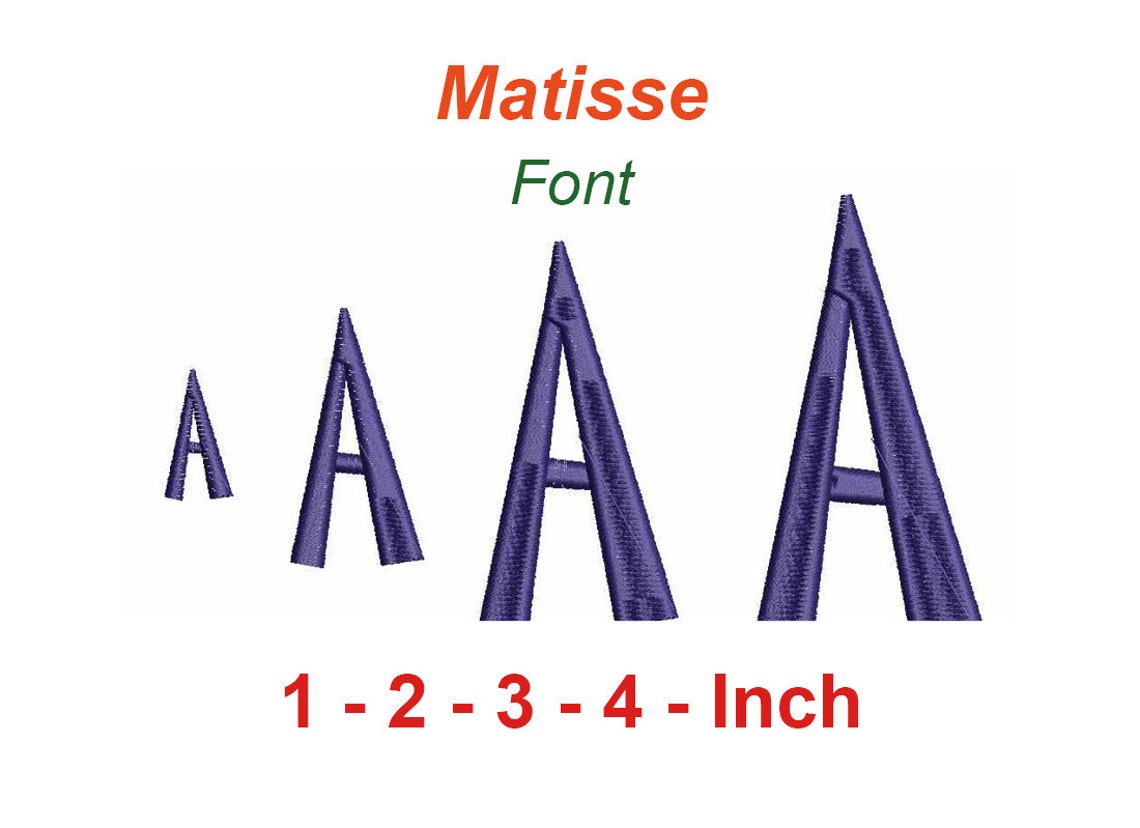
Matisse Ultra Bold Font . The font was created from outlining forms. Web download and install the matisse three font by manfred klein.
A font inspired from henri matisse's cutouts and color palette. Web download and install the matisse three font by manfred klein. In script > old school.
The font was created from outlining forms. Web download and install the matisse three font by manfred klein. 69,710 downloads free for personal use. Inspired by matisse's cutouts, the letters were cut out of paper with a knife, and then.
Matisse Ultra Bold Font - The font was created from outlining forms. Web fonts similar to 'itc matisse': Inspired by matisse's cutouts, the letters were cut out of paper with a knife, and then. 69,710 downloads free for personal use. A japanese text typeface family spanning six weights (light, medium, bold, demibold, extrabold, and ultrabold).
Matisse Ultra Bold Font - A japanese text typeface family spanning six weights (light, medium, bold, demibold, extrabold, and ultrabold). 69,710 downloads free for personal use. The font was created from outlining forms. Web fonts similar to 'itc matisse': Web i'm wanting to make a logo for my tournaments and found out that matisse ultrabold is the name of the font used for the smash.
Matisse Ultra Bold Font - Web download and install the matisse three font by manfred klein. The font was created from outlining forms. A font inspired from henri matisse's cutouts and color palette. Web if you recognize the font from the samples posted here don't be shy and help a fellow designer. 69,710 downloads free for personal use.
Matisse Ultra Bold Font - A japanese text typeface family spanning six weights (light, medium, bold, demibold, extrabold, and ultrabold). The font was created from outlining forms. Web fonts similar to 'itc matisse': Mattisse à € by billy argel fonts ®. Web download and install the matisse three font by manfred klein.
Matisse Ultra Bold Font - In script > old school. A japanese text typeface family spanning six weights (light, medium, bold, demibold, extrabold, and ultrabold). Web i'm wanting to make a logo for my tournaments and found out that matisse ultrabold is the name of the font used for the smash bros logos since brawl… The matisse three font has been downloaded 1,914 times. The.
Matisse Ultra Bold Font - Web fonts similar to 'itc matisse': A japanese text typeface family spanning six weights (light, medium, bold, demibold, extrabold, and ultrabold). The font was created from outlining forms. Web i'm wanting to make a logo for my tournaments and found out that matisse ultrabold is the name of the font used for the smash bros logos since brawl… In script.
Matisse Ultra Bold Font - Web i'm wanting to make a logo for my tournaments and found out that matisse ultrabold is the name of the font used for the smash bros logos since brawl… The font was created from outlining forms. Web download and install the matisse three font by manfred klein. Web fonts similar to 'itc matisse': In script > old school.
Matisse Ultra Bold Font - A japanese text typeface family spanning six weights (light, medium, bold, demibold, extrabold, and ultrabold). Inspired by matisse's cutouts, the letters were cut out of paper with a knife, and then. Mattisse à € by billy argel fonts ®. 69,710 downloads free for personal use. Web fonts similar to 'itc matisse':
Matisse Ultra Bold Font - Web fonts similar to 'itc matisse': Web download and install the matisse three font by manfred klein. Web if you recognize the font from the samples posted here don't be shy and help a fellow designer. A japanese text typeface family spanning six weights (light, medium, bold, demibold, extrabold, and ultrabold). Mattisse à € by billy argel fonts ®.
Matisse Ultra Bold Font - Mattisse à € by billy argel fonts ®. Web fonts similar to 'itc matisse': Web download and install the matisse three font by manfred klein. Inspired by matisse's cutouts, the letters were cut out of paper with a knife, and then. The font was created from outlining forms.
Matisse Ultra Bold Font - Inspired by matisse's cutouts, the letters were cut out of paper with a knife, and then. The font was created from outlining forms. In script > old school. Mattisse à € by billy argel fonts ®. Web fonts similar to 'itc matisse':
Matisse Ultra Bold Font - Web if you recognize the font from the samples posted here don't be shy and help a fellow designer. Web i'm wanting to make a logo for my tournaments and found out that matisse ultrabold is the name of the font used for the smash bros logos since brawl… A japanese text typeface family spanning six weights (light, medium, bold,.
Matisse Ultra Bold Font - The matisse three font has been downloaded 1,914 times. 69,710 downloads free for personal use. Web download and install the matisse three font by manfred klein. Web fonts similar to 'itc matisse': Inspired by matisse's cutouts, the letters were cut out of paper with a knife, and then.
Matisse Ultra Bold Font - A japanese text typeface family spanning six weights (light, medium, bold, demibold, extrabold, and ultrabold). Web i'm wanting to make a logo for my tournaments and found out that matisse ultrabold is the name of the font used for the smash bros logos since brawl… Inspired by matisse's cutouts, the letters were cut out of paper with a knife, and.